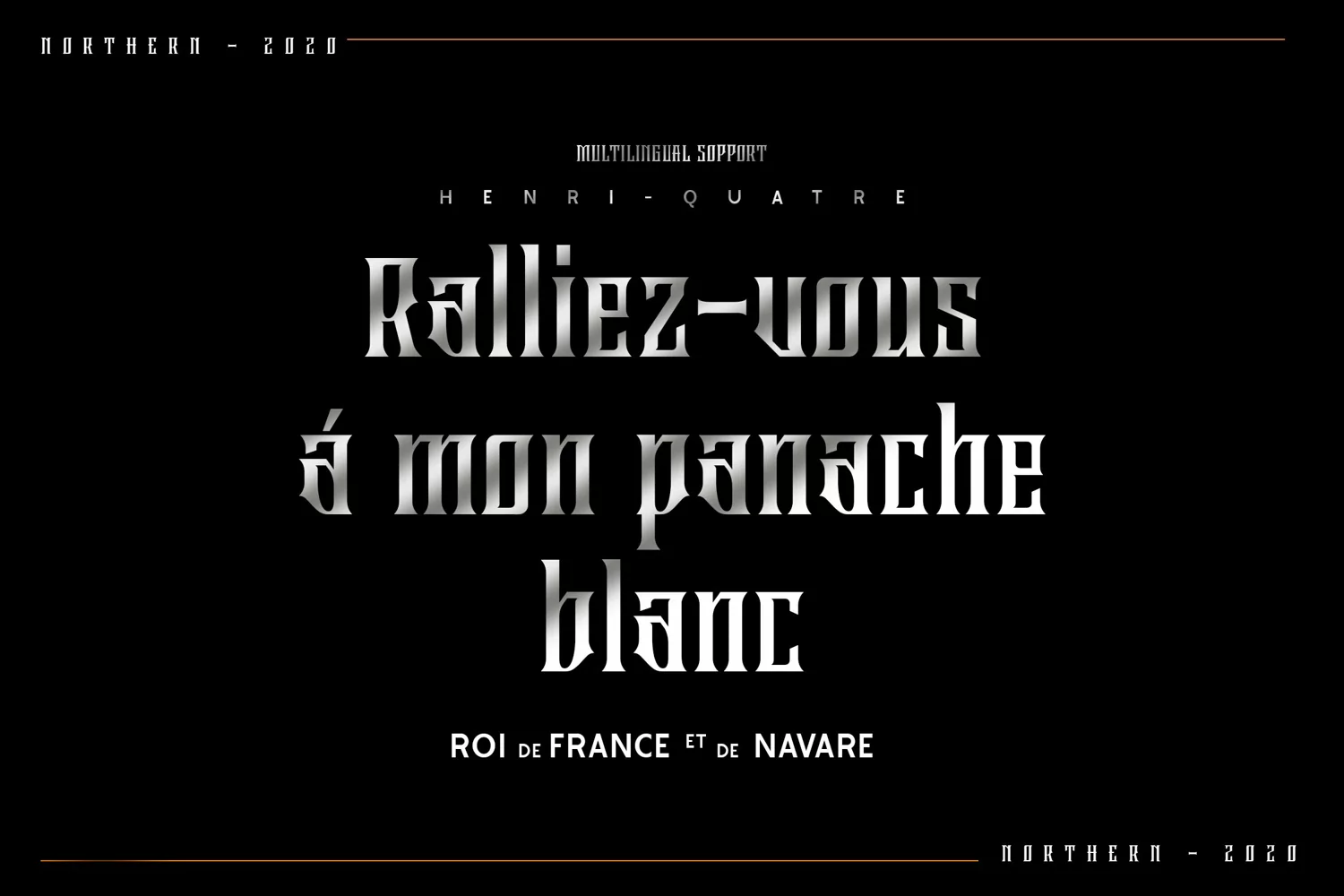
Northern - Gothic Decorative Display Serif Font
Suitable for any design needs : logo, branding, modern advertising design, halloween, gothic design, apparel, hardcore music, animation or movie, logos, poster quote, book / cover Title, editorial design, website / blog, card, custom mug, pillow, t-shirts, and any gothic hand-lettered needs.